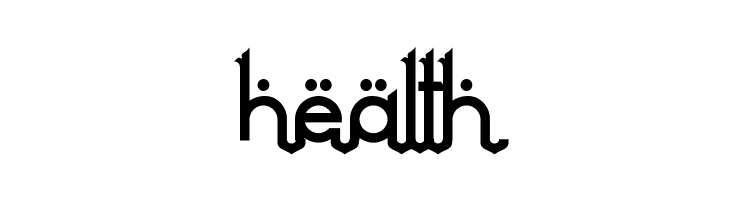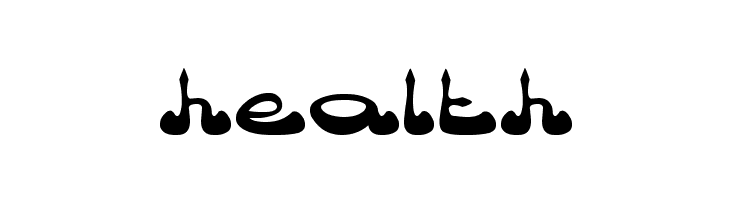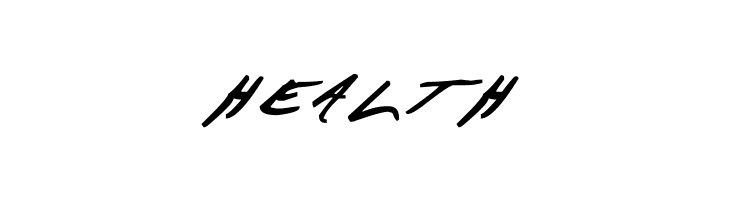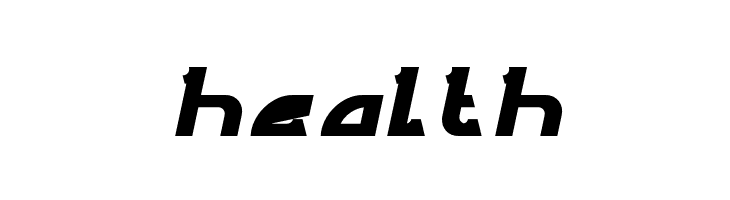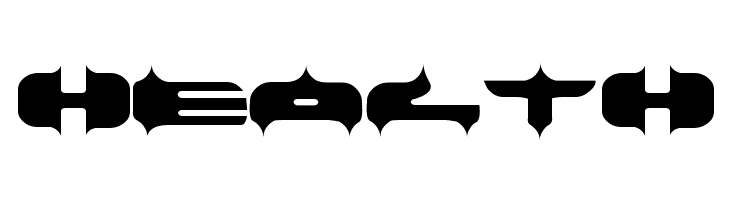
A playful, organic font with rounded, fluid characters and varying stroke thickness.
A dynamic handwritten font with fluid, connected strokes and a natural flow.
A bold, angular font with a futuristic and geometric style.
A decorative font inspired by Arabic calligraphy with bold strokes and intricate details.
A bold, decorative font with intricate, Middle Eastern-inspired designs.
A bold, decorative font with an exotic, playful style and flowing curves.
A playful, casual handwritten font with smooth, flowing letterforms.
A playful, casual handwritten font with smooth, flowing lines.
A bold, italic font with a retro arcade style and dynamic, angular design.
An elegant, flowing script font with a classic calligraphic style.